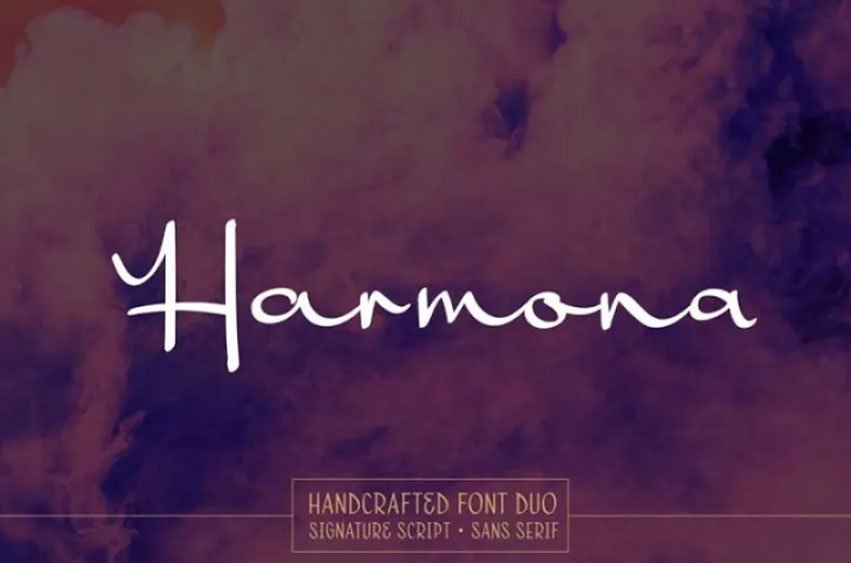
Harmona Font
Harmona Font comes from a romantic feeling and a strong desire to unite in harmony. Harmona Script conveys a rather simple but very beautiful and elegant script, readability it takes priority over the different media, which means it can be used in banks as well as on television screens.
For those of you who love signature fonts, this font is suitable for you to capture beautiful poems and quotes, invitation design, posters, logotype, etc.